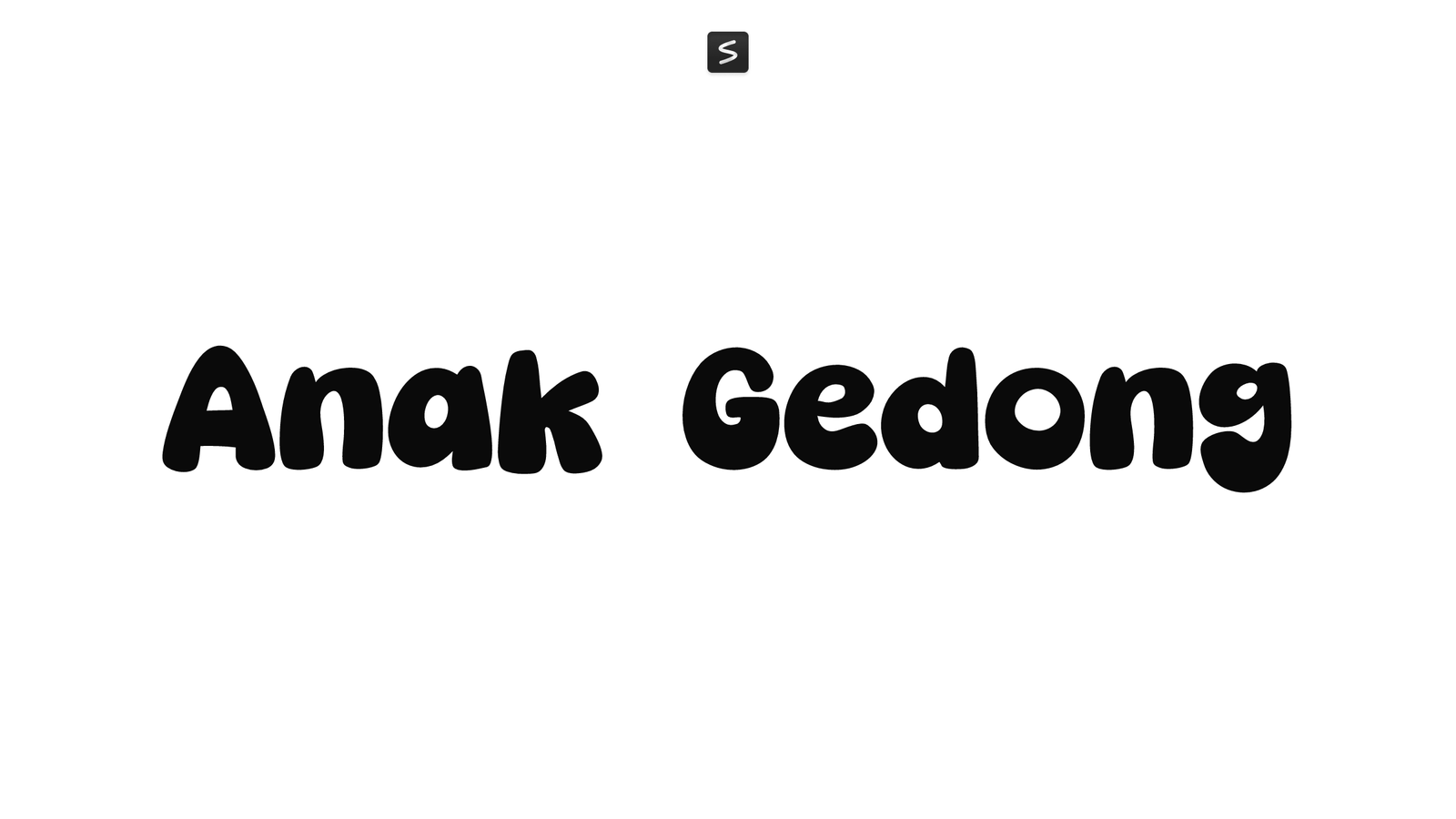
Anak Gedong is a rounded, bold sans-serif font designed by Khurasan™. Its generous curves and soft edges give it a friendly, approachable character that reads as playful and open. The letterforms feel organic without being hand-drawn, making it work equally well for headlines and body text in casual contexts.
This font is well-suited for cartoon-style projects, children’s book covers, comic strips, animated content, packaging, and social media graphics. It brings a lighthearted energy to any design that calls for warmth and personality. The rounded geometry keeps things accessible while the bold weight ensures visibility at any size.